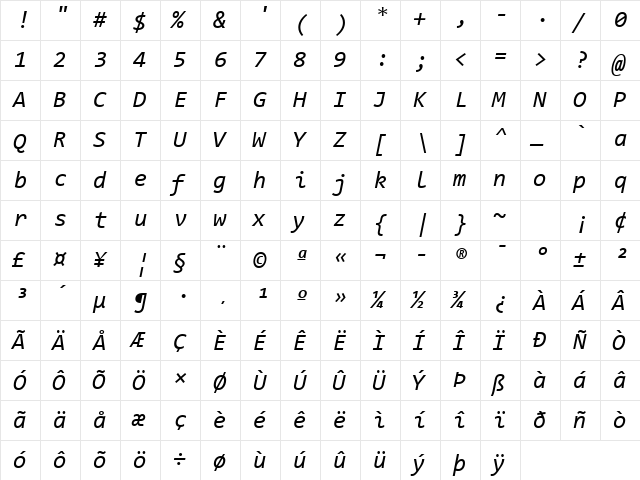
Consolas Italic Font Preview
Consolas Italic
Consolas Italic Font Details
| Foundry | Microsoft Corporation |
| Designer | Luc(as) de Groot |
Design Context for Consolas Typeface
Consolas offers clean, dependable letterforms without strong stylistic allegiance, making it a practical choice for designers who need flexibility. The dynamic lean of this cut emphasises speed and emphasis in any layout.